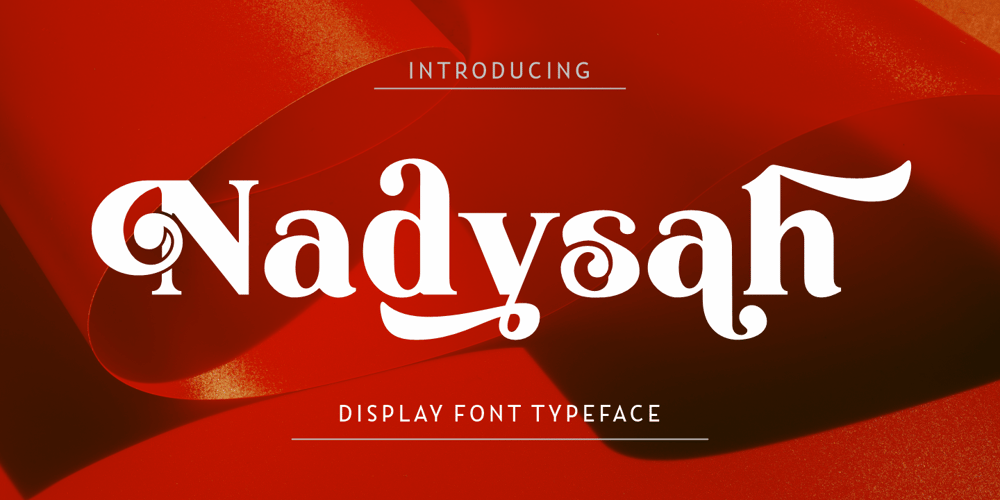
Nadysah
Nadysah font
Nadysah Font Family was designed by Yusliana M Isa and published by Gian Studio. Nadysah contains 1 styles and family package options. Nadysah with a creative atmosphere and perfect shape, inspired by today’s beautiful Display serifs. thick,balanced and varied, born for luxury and beauty.In my example I show how this serif can be used. It’s great for logotypes, branding, wedding invitations, romantic cards, retro labels, packaging, name spelling and more.Nadysah comes with beautiful upper and lower case letters, numbers, and punctuation. In addition to the main character set,there are many alternative characters, start and end sweeps.Available Fonts:. Nadysah (OT)If you have any questions please feel free to contact me!Thank You,